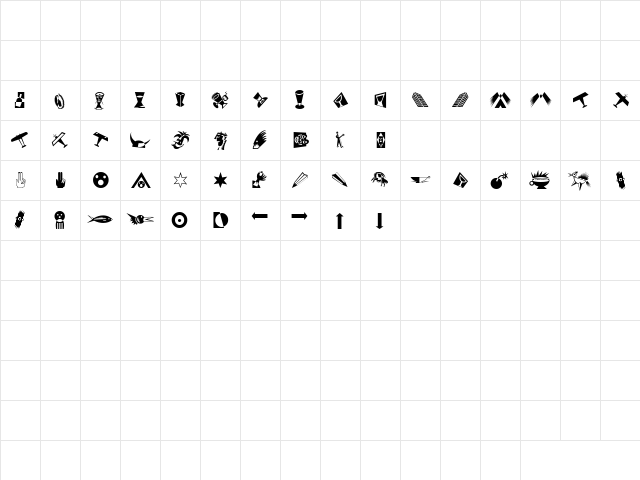
P22 Futurismo Extras Regular
Design Context for P22 Futurismo Extras Typeface
P22 Futurismo Extras channels digital-age aesthetics through its sharp, structured letterforms — ideal for brands that want to signal innovation.